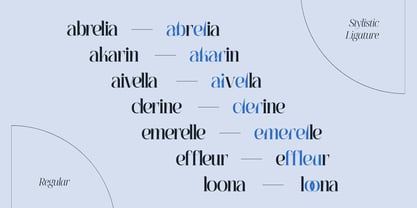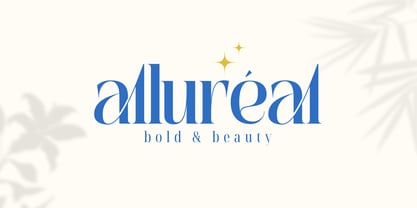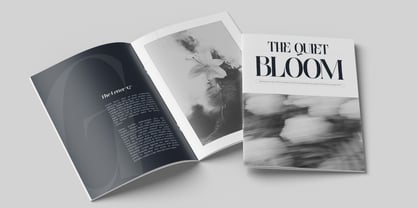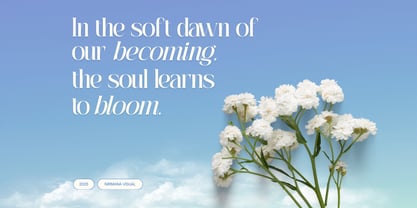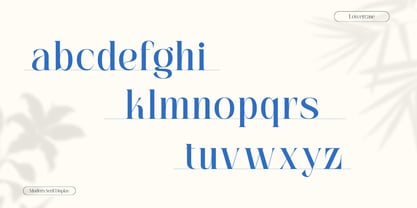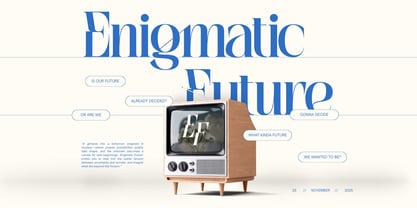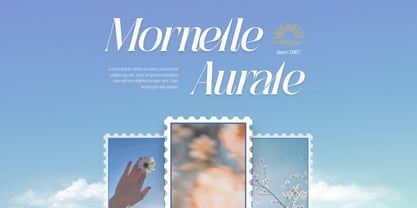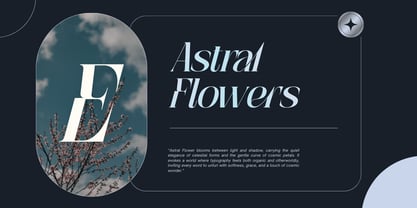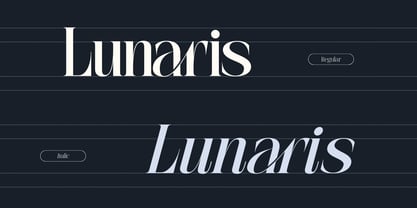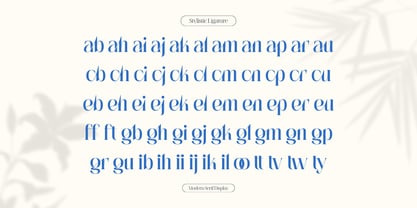
Agremail Modern
by Nirmana Visual
The Agremail Modern Font Family was designed by Sigit Dwipa and published by Nirmana Visual. Agremail Modern contains 2 styles and family package options. More about this family
Agremail Modern is an aesthetic serif typeface featuring elegant ligatures, available in Regular and Italic. Crafted for refined logo branding, striking headlines, stylish posters, and more, its modern curves and sophisticated details bring a premium, timeless feel to any design. Perfect for creatives seeking a classy, polished, and visually captivating typographic statement.